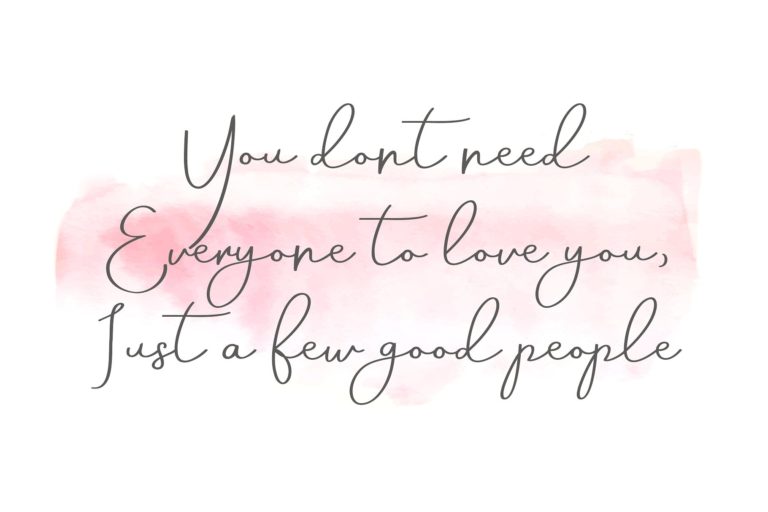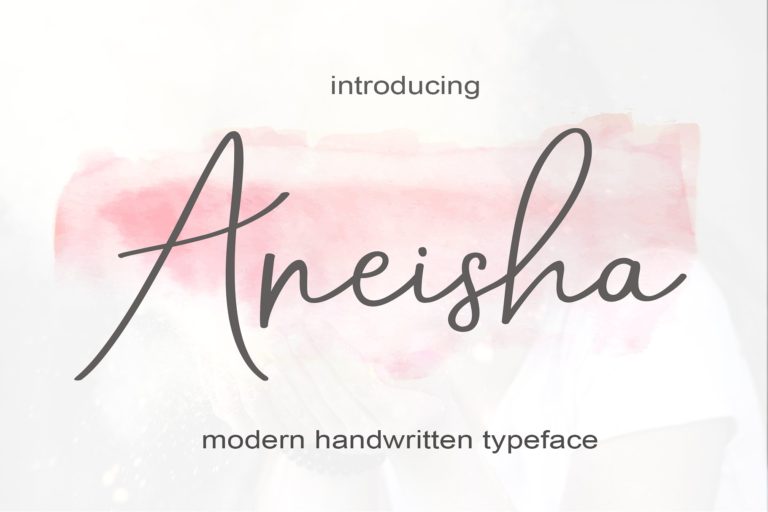
Aneisha Handwriting
Aneisha Handwriting Font
Aneisha Script is a modern calligraphy font with the current handwriting style, this font is perfect for branding, wedding invites, magazines, mugs, business cards, quotes, posters, and more, you can try first if you want to buy this font.